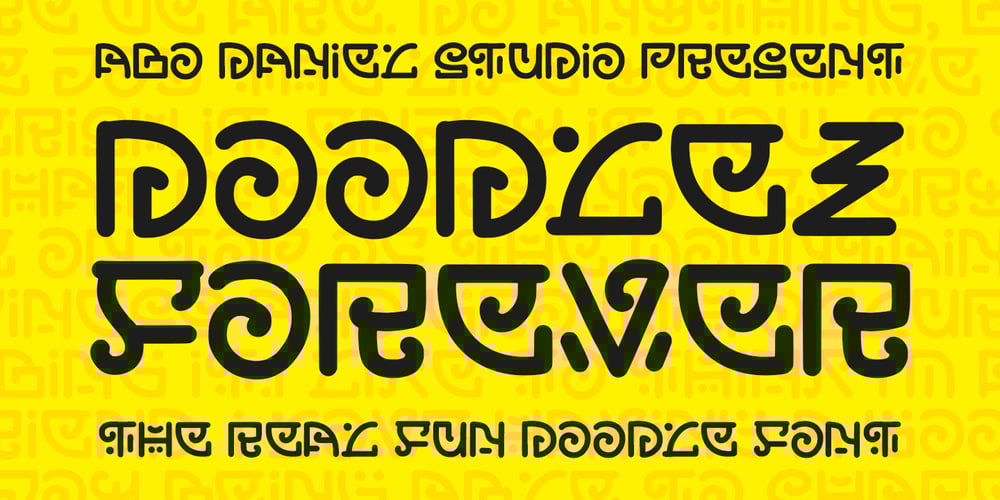
Doodlez Forever
Doodlez Forever font
Doodlez Forever Font Family was designed by Abo Daniel and published by Abo Daniel. Doodlez Forever contains 1 styles and family package options. Proudly PresentDOODLEZ FOREVER- The Real Doodles Font-The font that made special for doodle lovers.This font is very unique and user friendly.It’s great for branding, packaging, T-shirt design, pillow design, quotes and many more.It came with multilingual support and already PUA encoded.Doodlez Forever is very worth to be picked into your collection.Trust me !Regards,Abo Daniel Sturio